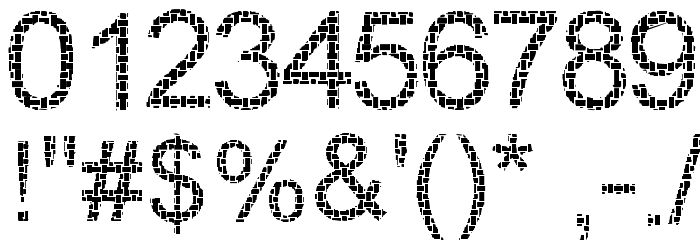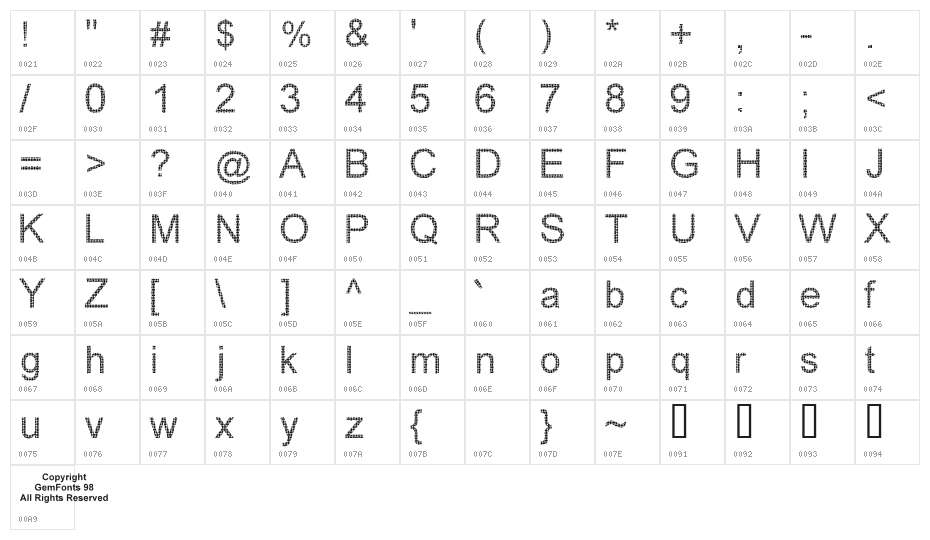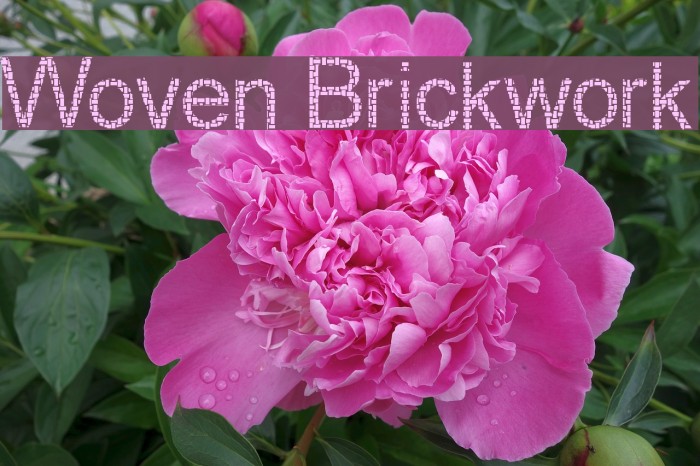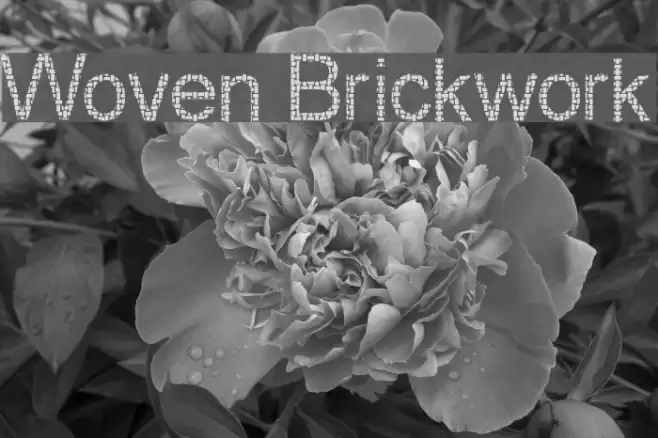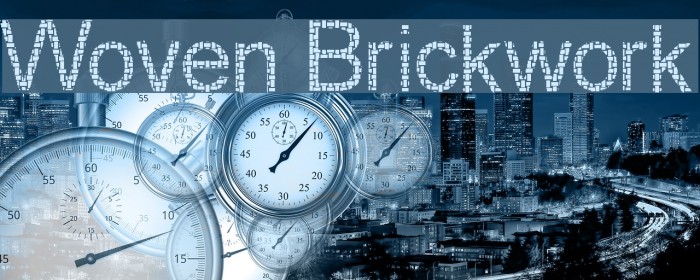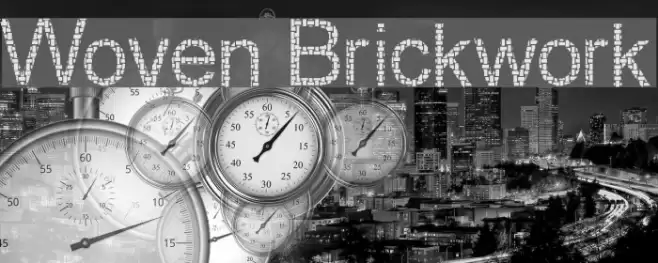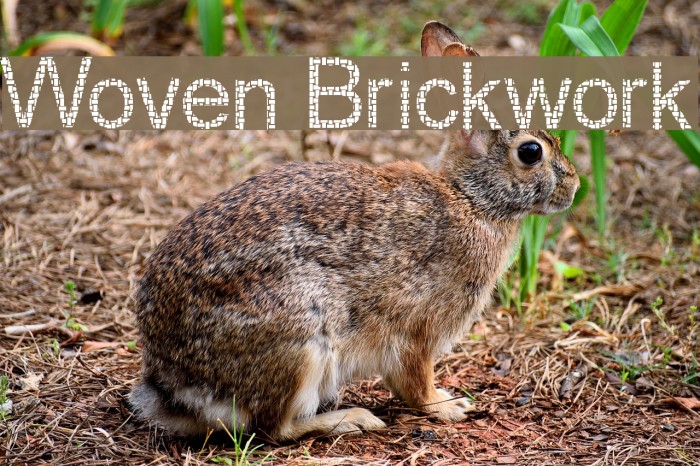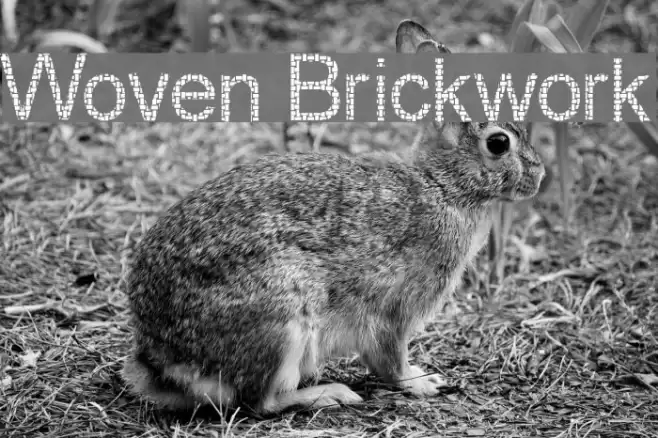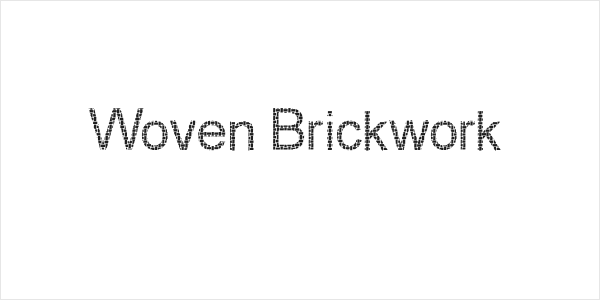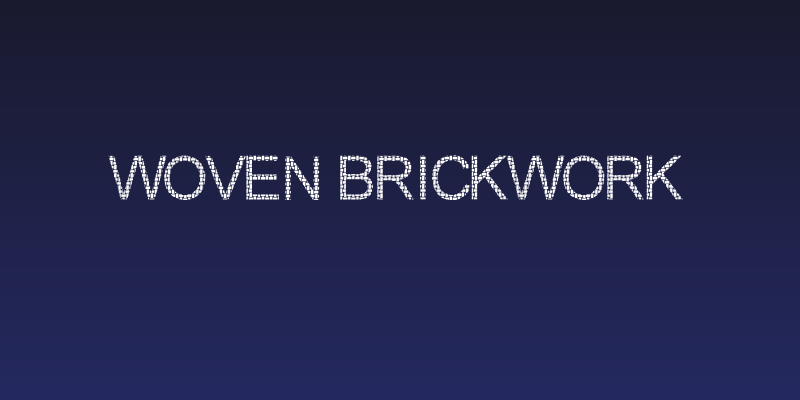
Woven Brickwork Font
Woven Brickwork Description
This font features a unique woven pattern that gives each character a textured, brick-like appearance. The design is highly decorative, with a mosaic-like effect that adds depth and visual interest. The uppercase and lowercase letters maintain a consistent style, with clear geometric shapes that are both bold and intricate. Numbers and special characters are equally detailed, ensuring a cohesive look across all elements. The font's distinctive style makes it ideal for projects that require a strong visual impact, such as posters, logos, and branding materials. Its decorative nature may not suit body text but excels in creating eye-catching headlines and titles.